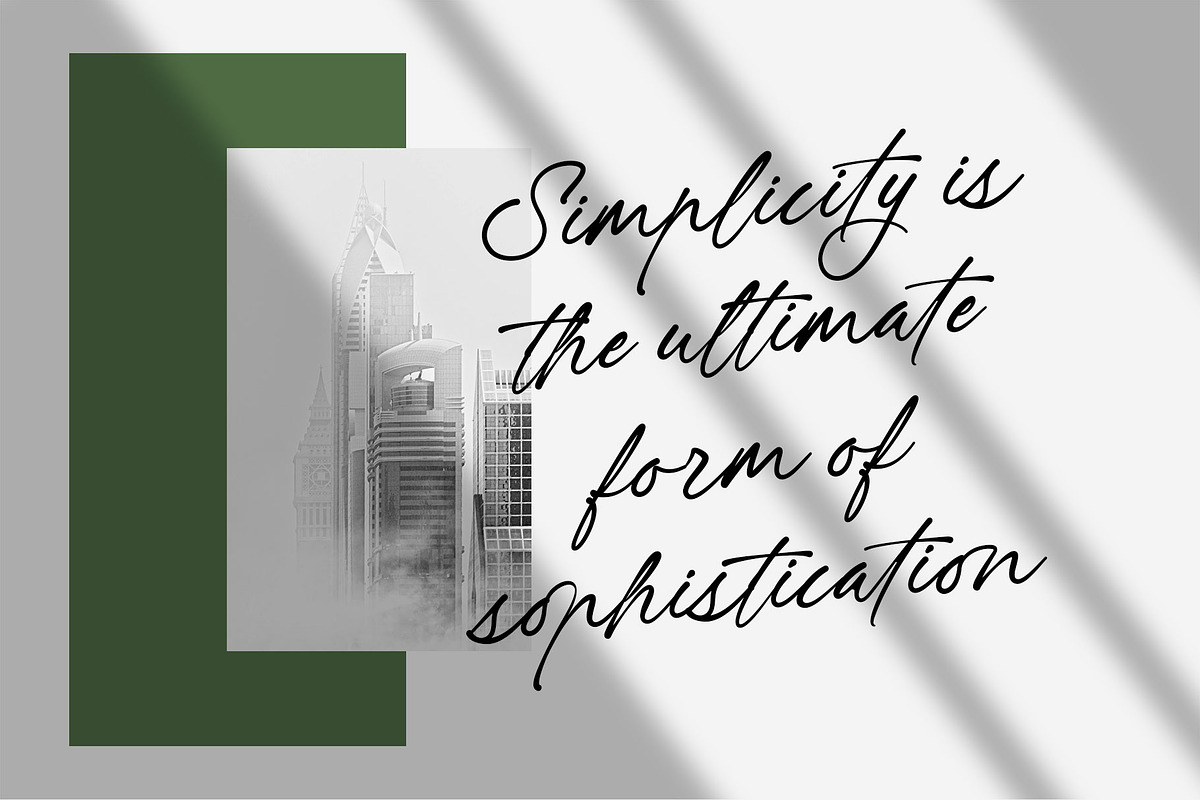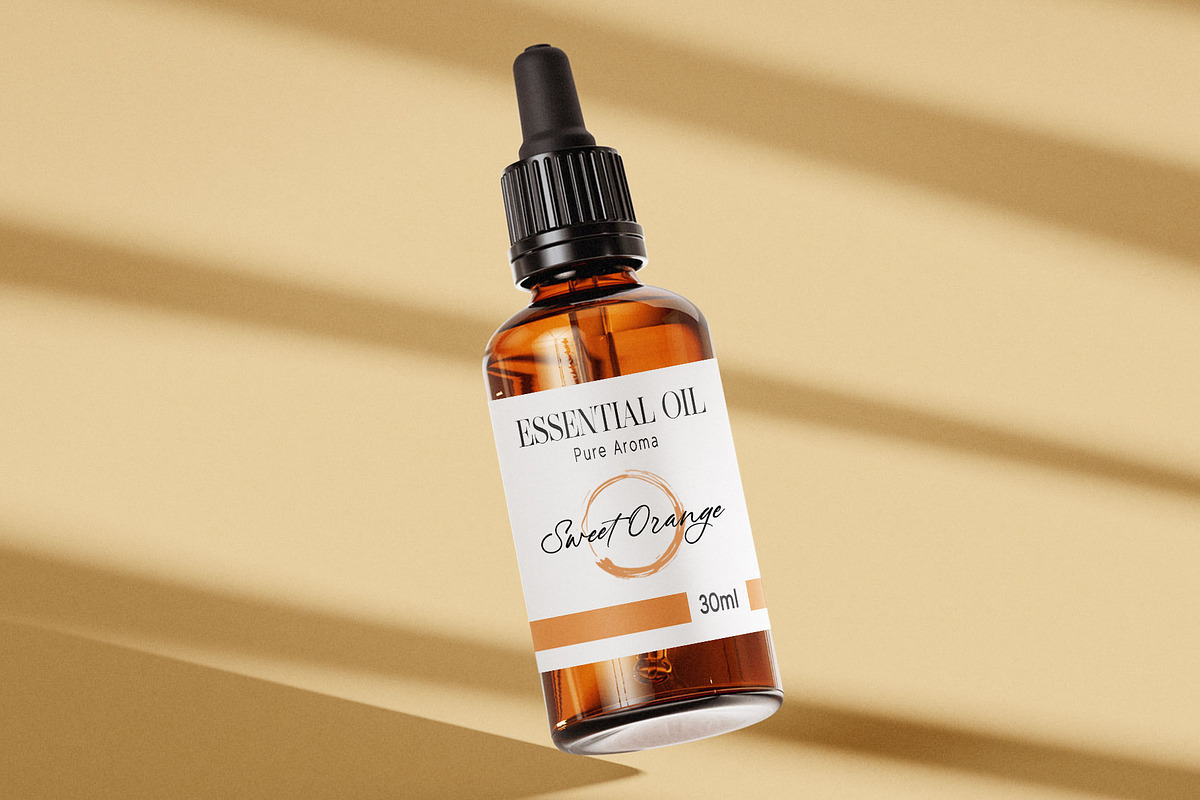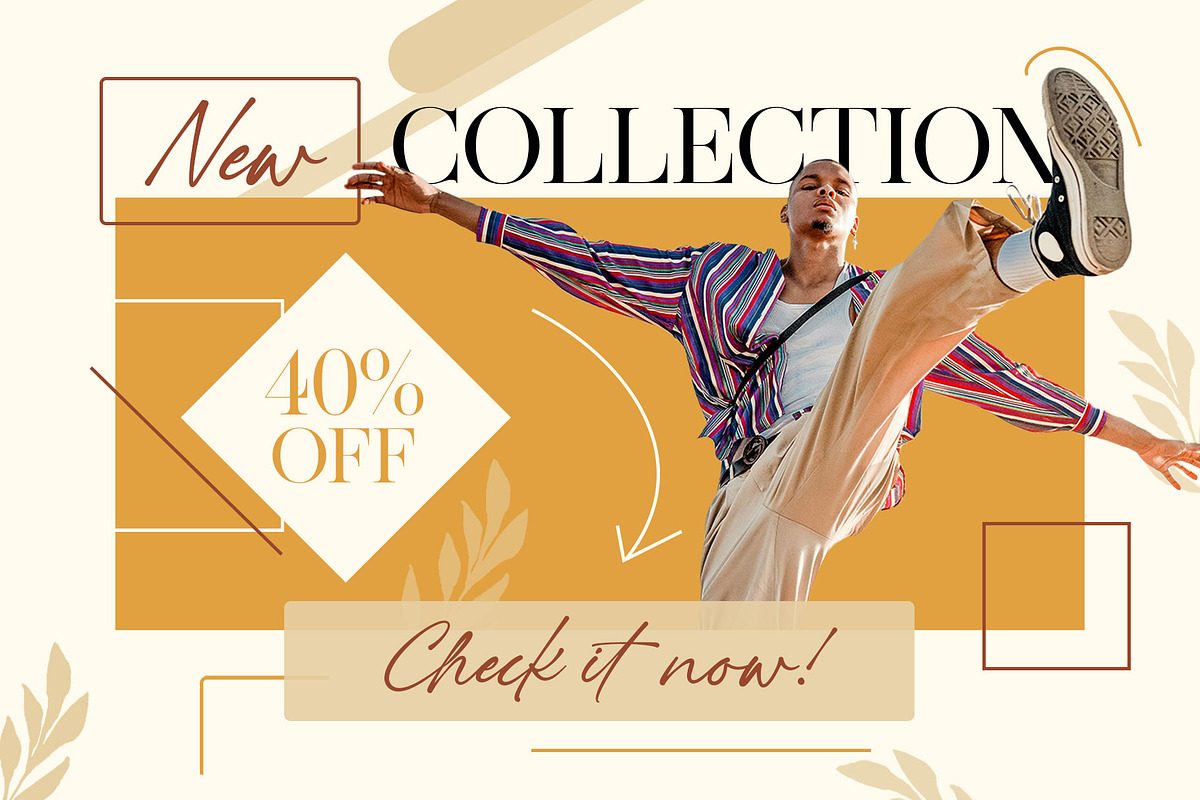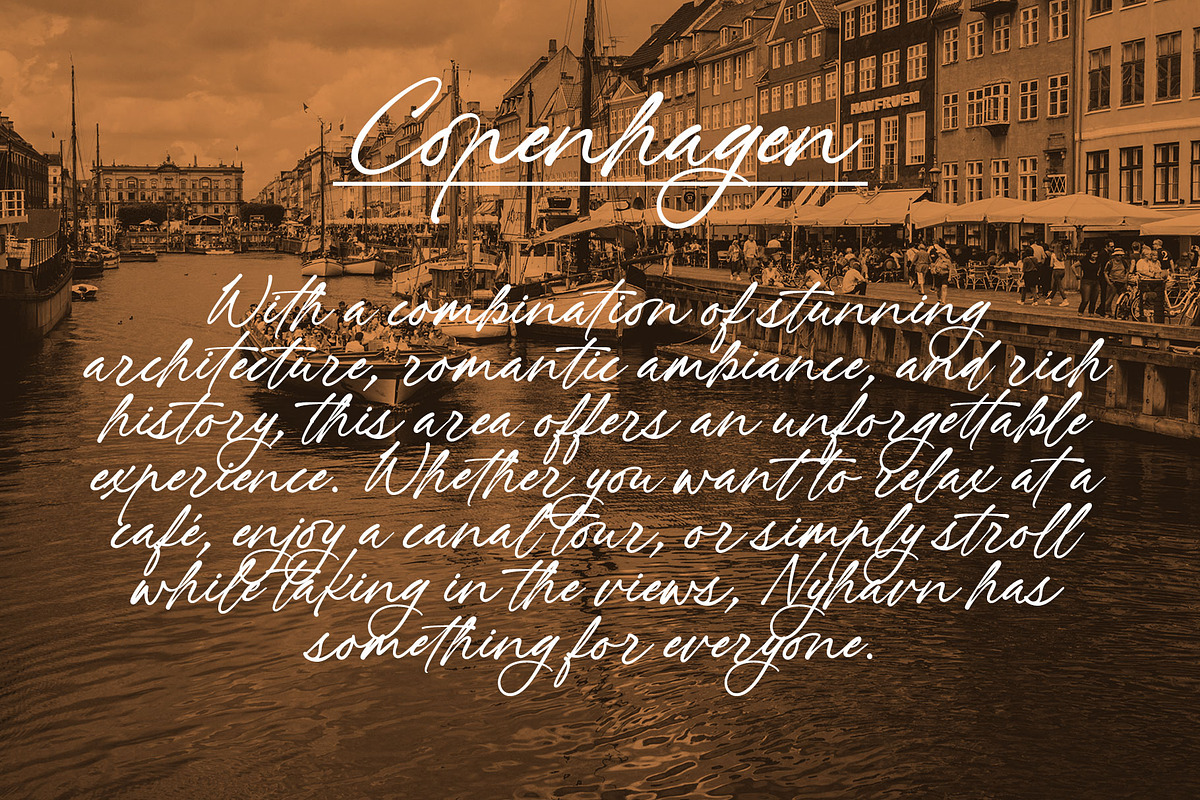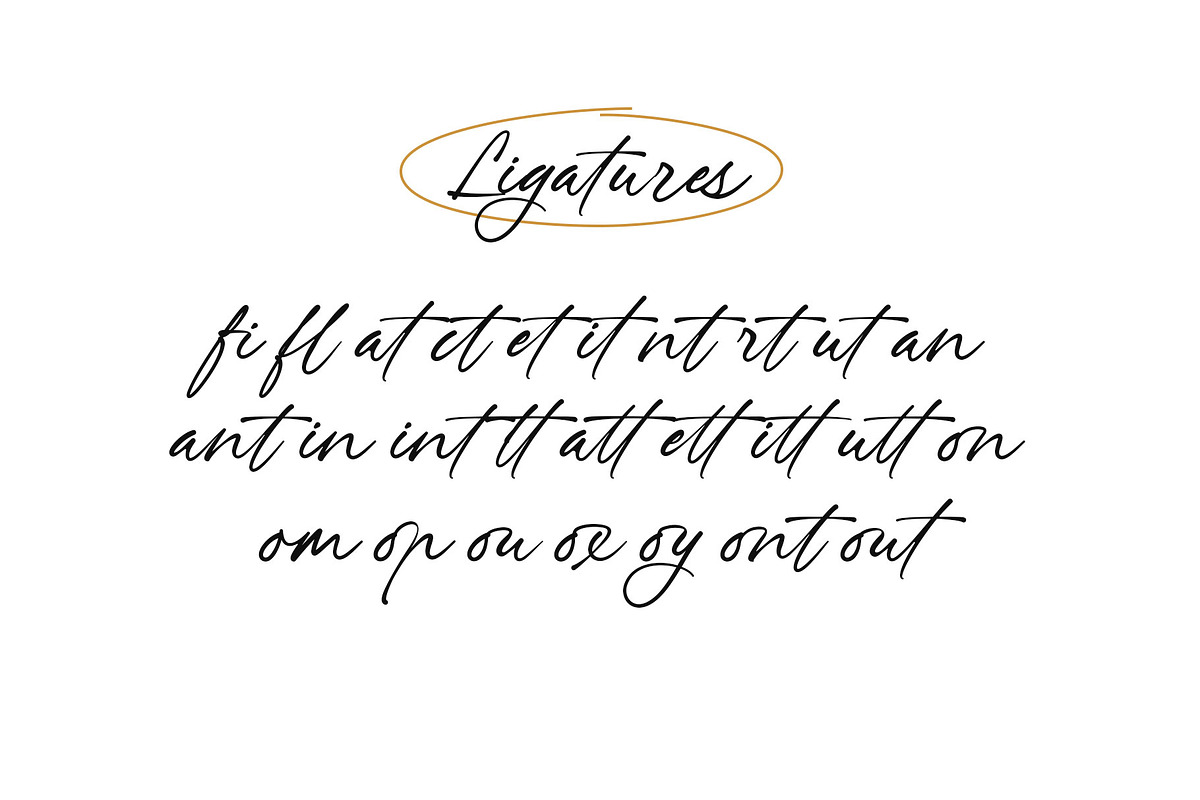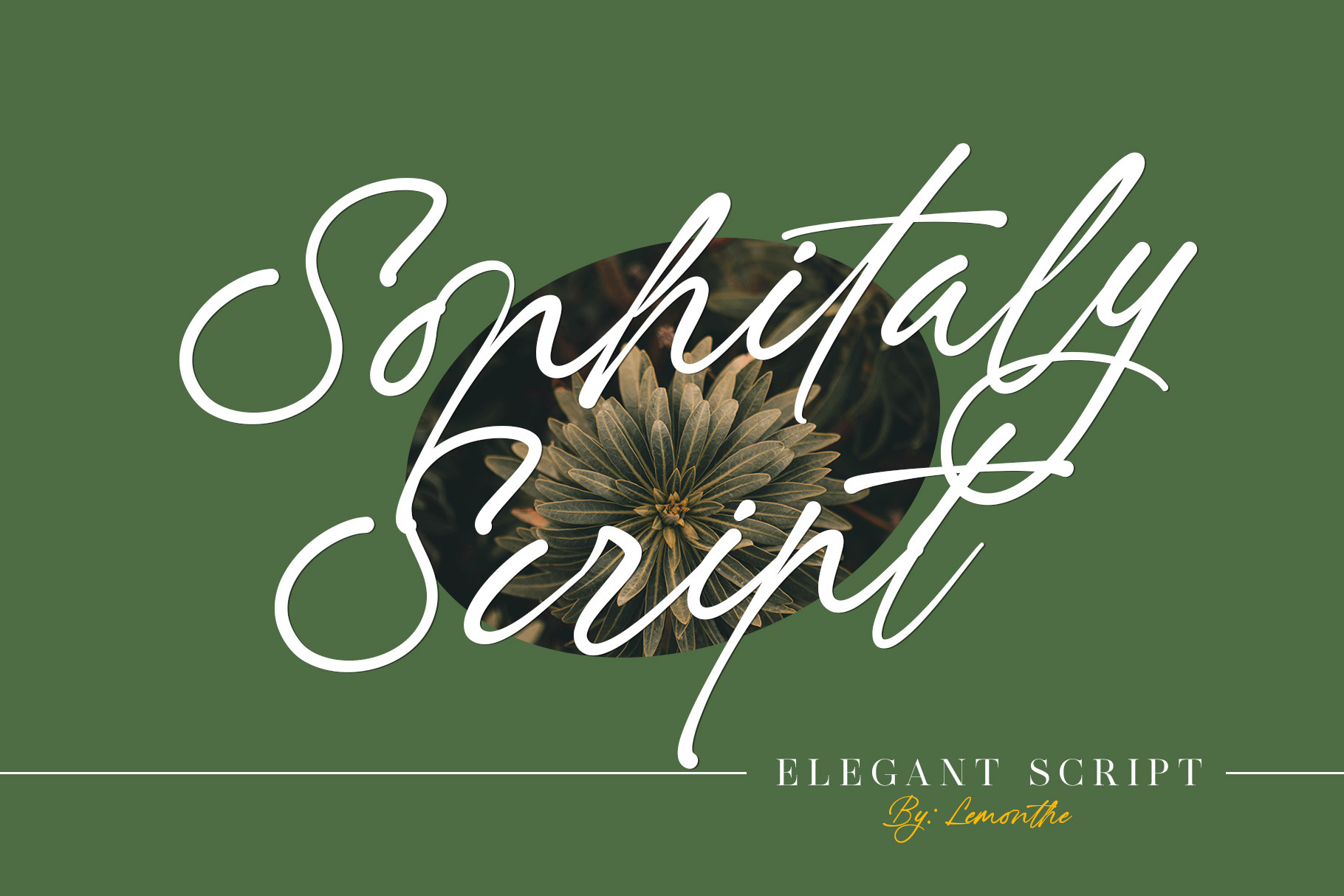
Sophitaly | Script Font
Sophitaly Script is a script-style font with a natural and modern look, designed to prioritize practicality and flexibility. This font features clean strokes and meticulously crafted letterforms, creating a professional impression that is perfect for various design projects. Sophitaly Script is ideal for use in logos, branding, packaging design, editorials, and many other creative projects.